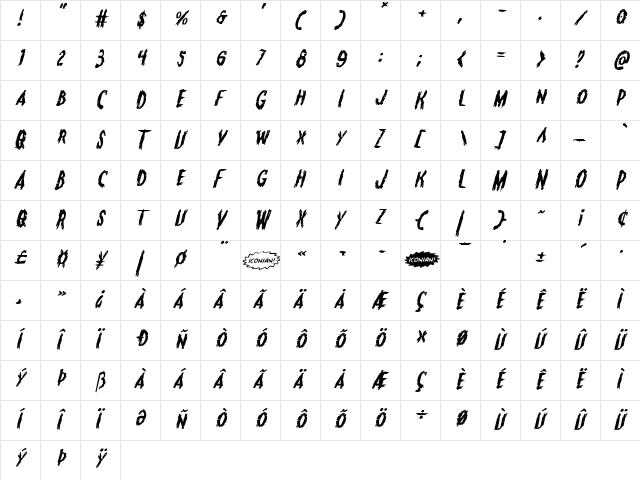
Monsterama Expanded Italic Expanded Italic
Design Context for Monsterama Expanded Italic Typeface
Monsterama Expanded Italic is a composed and adaptable typeface that performs quietly and consistently across a wide range of design contexts. Its italic angle brings a sense of urgency and motion to the letterforms.
Pro Tip: Try Monsterama Expanded Italic for annotation and caption copy alongside an upright companion — the contrast in angle creates a dynamic but ordered typographic system.